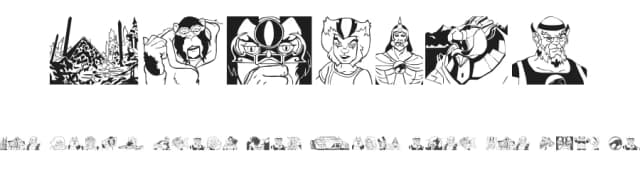
About Monster Party Font
Monster Party is a dingbat font designed by Michael Gaines. It includes 40 glyphs, a regular weight, and TTF (TrueType) format. Monster Party is free to download; check the license details on this page before commercial use. Dingbat fonts like Monster Party work best for icons, ornaments, bullet points, and decorative accents.
Monster Party Font is a versatile dingbats font that works for both headings and body text. Pair it with a contrasting sans-serif or serif font to add visual interest and a clear distinction between titles and body copy.
Monster Party Font
Monster Party Font is a dingbats typeface by Michael Gaines, ideal for logos, invitations, branding, and creative projects.